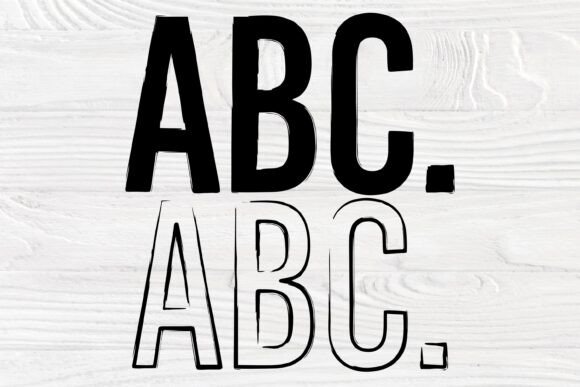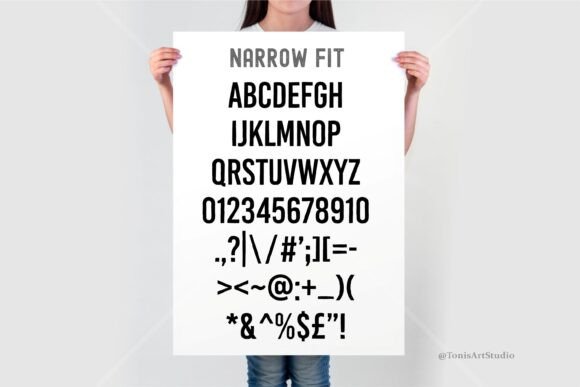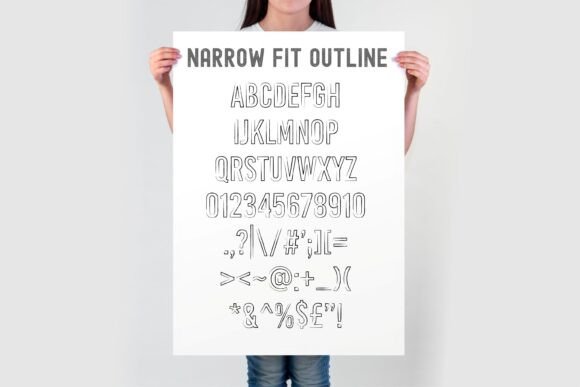
Introduction to Narrow Fit Font
Do you ever get that rush of excitement when you’re working on a creative project and you stumble upon the perfect design element? That’s exactly what happened to me when I discovered the AB Narrow Fit font. As a designer, I’m always on the lookout for high-quality resources that can elevate my projects and help me stand out from the crowd.
With its sleek and modern edge, the Narrow Fit Font is the perfect addition to any design arsenal. Now available in two distinct styles – Regular and Outline – this versatile typeface is ideal for projects that require a narrow, dynamic look. Whether you’re working on sports branding, team posters, or urban streetwear, the Narrow Fit Font is sure to deliver a strong, clean appearance that’s perfect for cutting machines like Cricut and Silhouette.
Narrow Fit Font
- Narrow and condensed font perfect for modern and minimalist designs
- Features a transparent background, allowing for seamless integration with any design
- Resolution: 300 DPI, ensuring crisp and clear text in print and digital applications
- Designed for use in headings, titles, and short paragraphs where space is limited
- Perfect for designers and artists looking for a unique and stylish font for their creative project
Honest Review: Narrow Fit Font
I recently stumbled upon the Narrow Fit Font, a free download that caught my attention. As a designer, I’m always on the lookout for unique and high-quality design resources to elevate my creative projects.
What works well with the Narrow Fit Font is its sleek and modern aesthetic, perfect for minimalistic designs. The transparent background makes it easy to use in various contexts, from digital interfaces to print materials. I also appreciate the variety of weights and styles available, which allows for flexibility in my designs.
- ✨ High-quality design that looks great on any device
- ✨ Variety of weights and styles for added flexibility
- ✨ Easy to use due to transparent background
However, I do have a few reservations. The font can be a bit difficult to read in smaller sizes, and the character set is somewhat limited. Additionally, I wish there were more language support options available.
- ⚠️ Limited character set
- ⚠️ Difficulty reading in smaller sizes
- ⚠️ Limited language support options
Overall, I think the Narrow Fit Font is a solid addition to any designer’s toolkit. While it has some limitations, its modern aesthetic and high-quality design make it a great choice for creative projects.
Narrow Fit Font
The Narrow Fit Font is a versatile design resource ideal for various creative projects. It features a high-quality, narrow design that makes it perfect for applications where space is limited.
Tips for Getting the Most Out of the Narrow Fit Font
For the best results, use the Narrow Fit Font on a transparent background and pair it with a high-quality image or design element.
The Narrow Fit Font is ideal for:
- Labels and tags
- Signage and posters
- Business cards and brochures
Narrow Fit Font Alternatives
1. Montserrat
Montserrat is a popular sans-serif font known for its high quality and versatility. It’s a great choice for creative projects that require a clean and modern look. When to use: headings, body text, and titles. Montserrat is similar to Narrow Fit Font in terms of its sleek and minimalist design, but it has a more geometric feel and is more suitable for digital interfaces.
2. Open Sans
Open Sans is a free download font that’s widely used in various design projects. It’s a highly legible font with a transparent background, making it perfect for creating engaging content. When to use: body text, headings, and captions. Open Sans is more rounded and friendly compared to Narrow Fit Font, making it ideal for social media, blogs, and other online platforms.